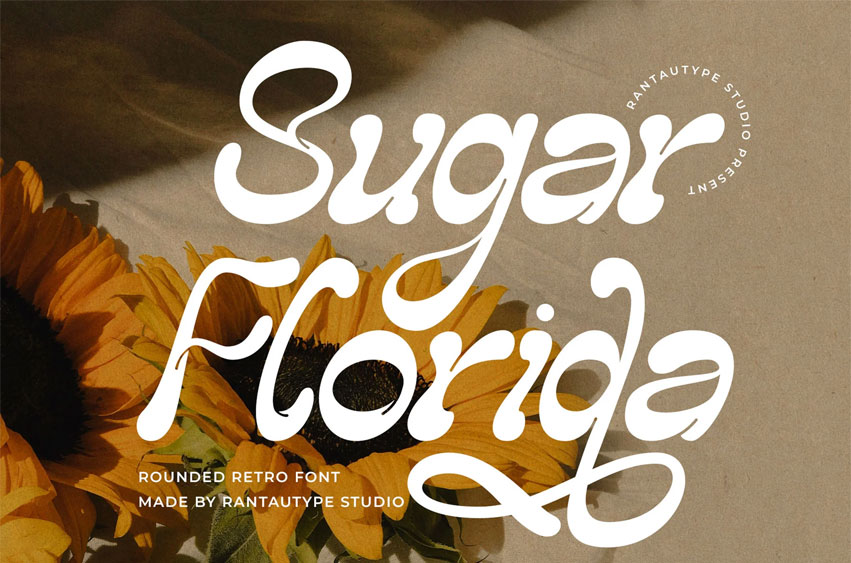
Sugar Florida Font
Sugar Florida Font is rounded retro font made by rantautype studio.
Sugar Florida is a perfectly choice for any creative endeavor, creating, modern, lifestyle design such as logotype, title, cover, branding, invitations, wedding designs, display and magazine, social media posts, advertisements, printed quotes, product packaging, corporate brand, product designs, labels, photography, watermarks, special events and any other project with playful touch.